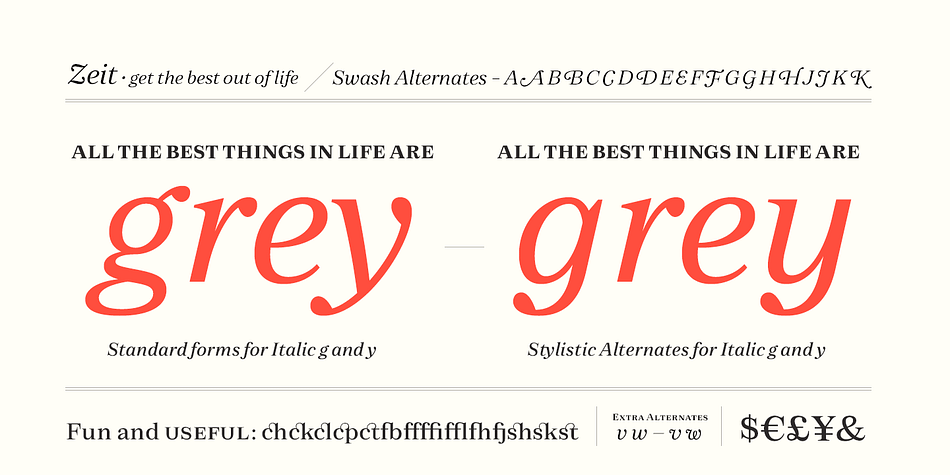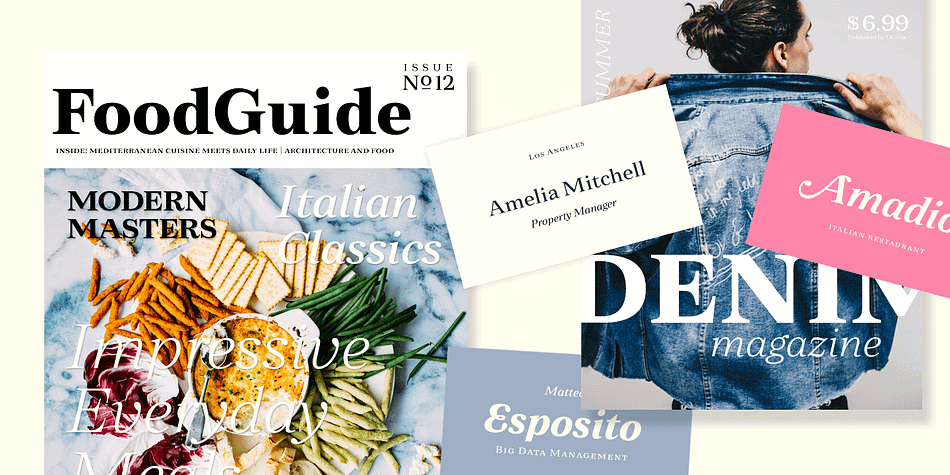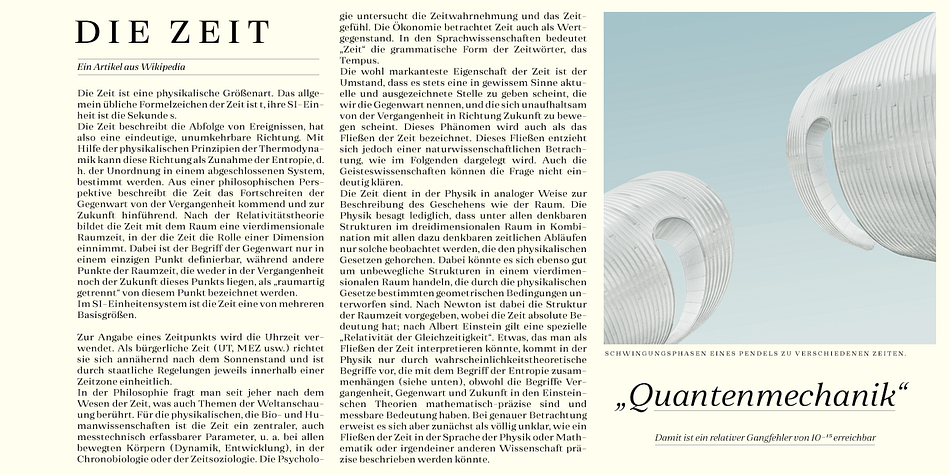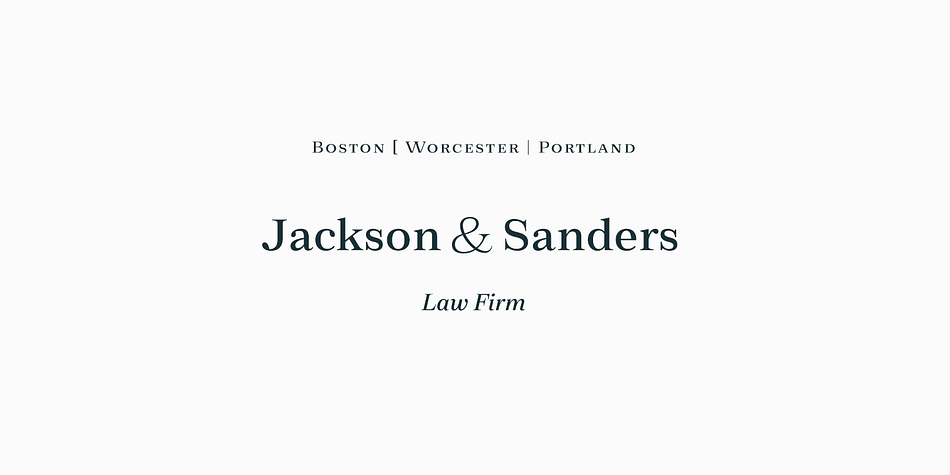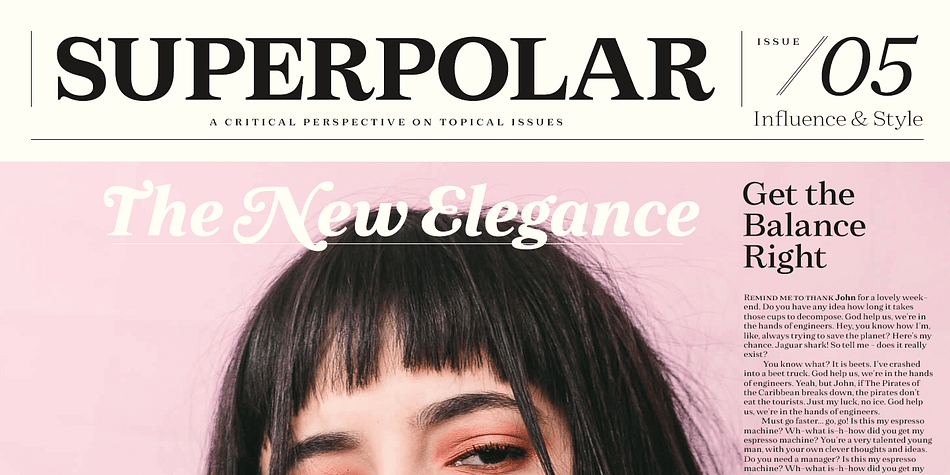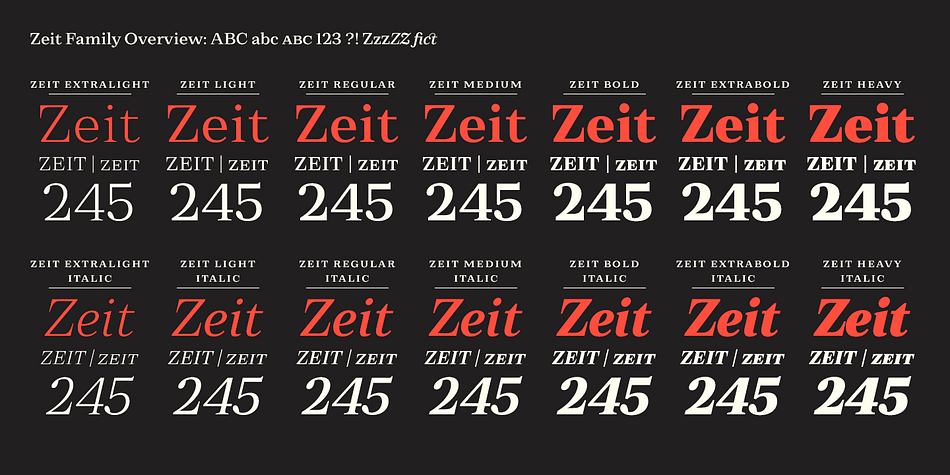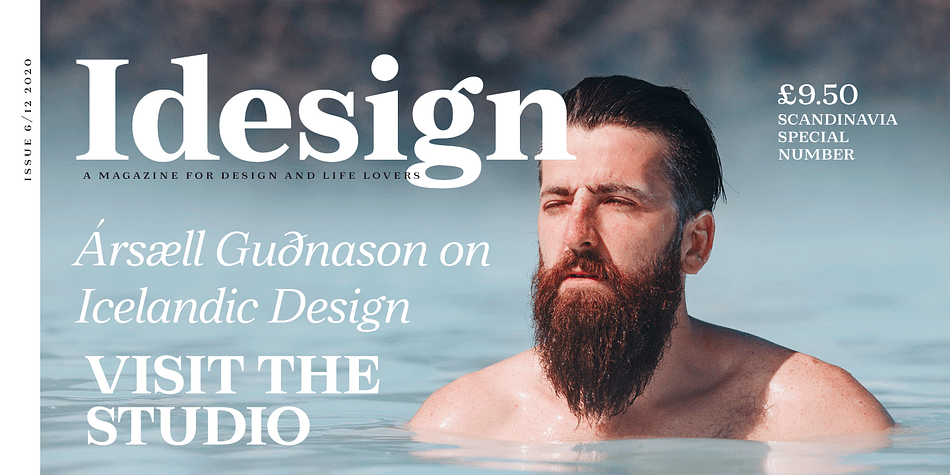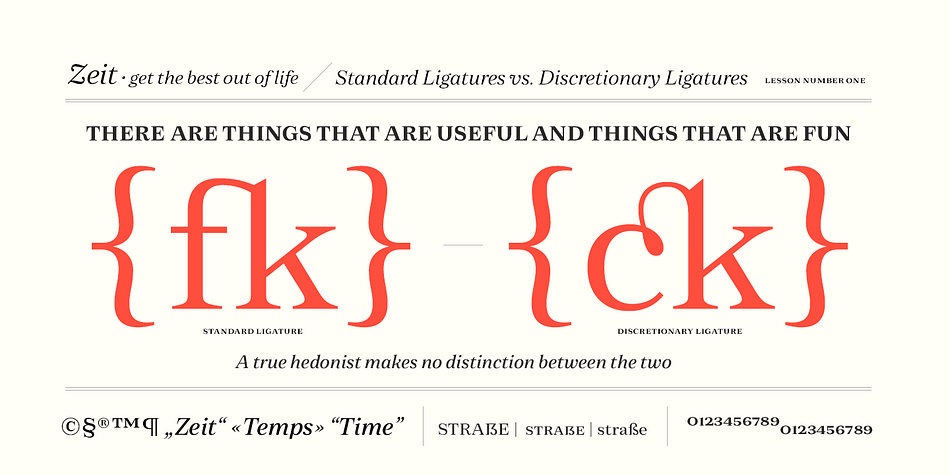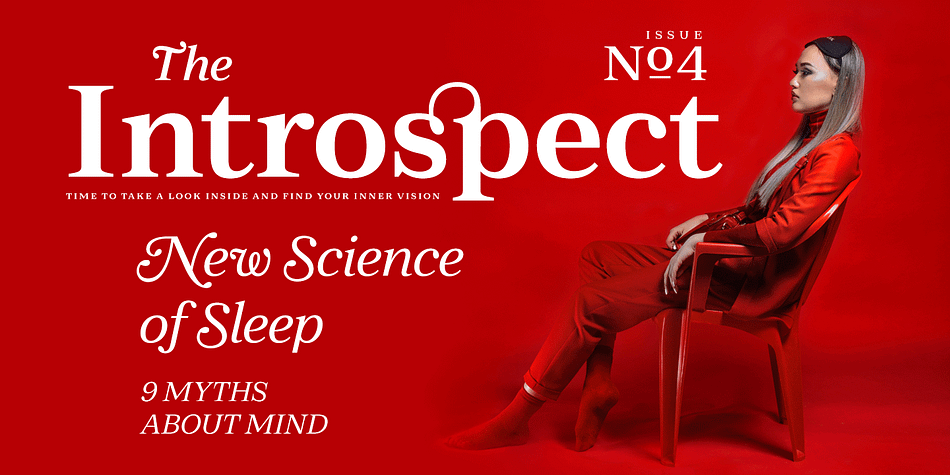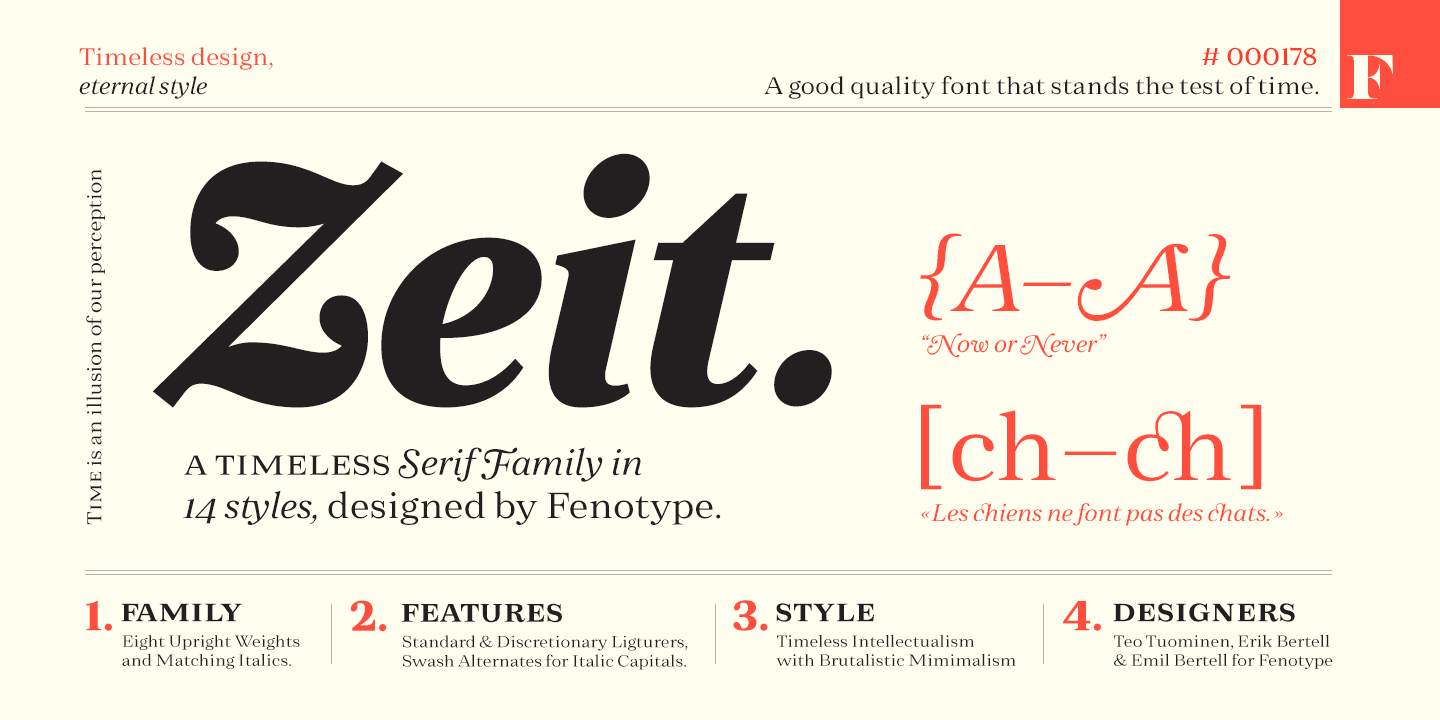
Designed by Erik Bertell, Emil Bertell and Teo Tuominen, Zeit is a serif font family. This typeface has fourteen styles and was published by Fenotype.
While fashions come and go, style is eternal. True to its name, Zeit is an ageless serif font family, distinct yet reassuringly familiar and trustworthy.
From magazines to mobile apps, branding to advertising, Zeit covers everything with poise.
The font family is equipped with many handy and carefully thought features.
Small capitals and small capital figures, old style figures, subscript and superscript figures and fractions are intrinsic to the design.
For a bit of flair, look for the swash alternates included in the italics – along with variants of the characters g and y.
Look no further, Zeit is rigorously designed from head to toe – as only true quality can stand the test of time.